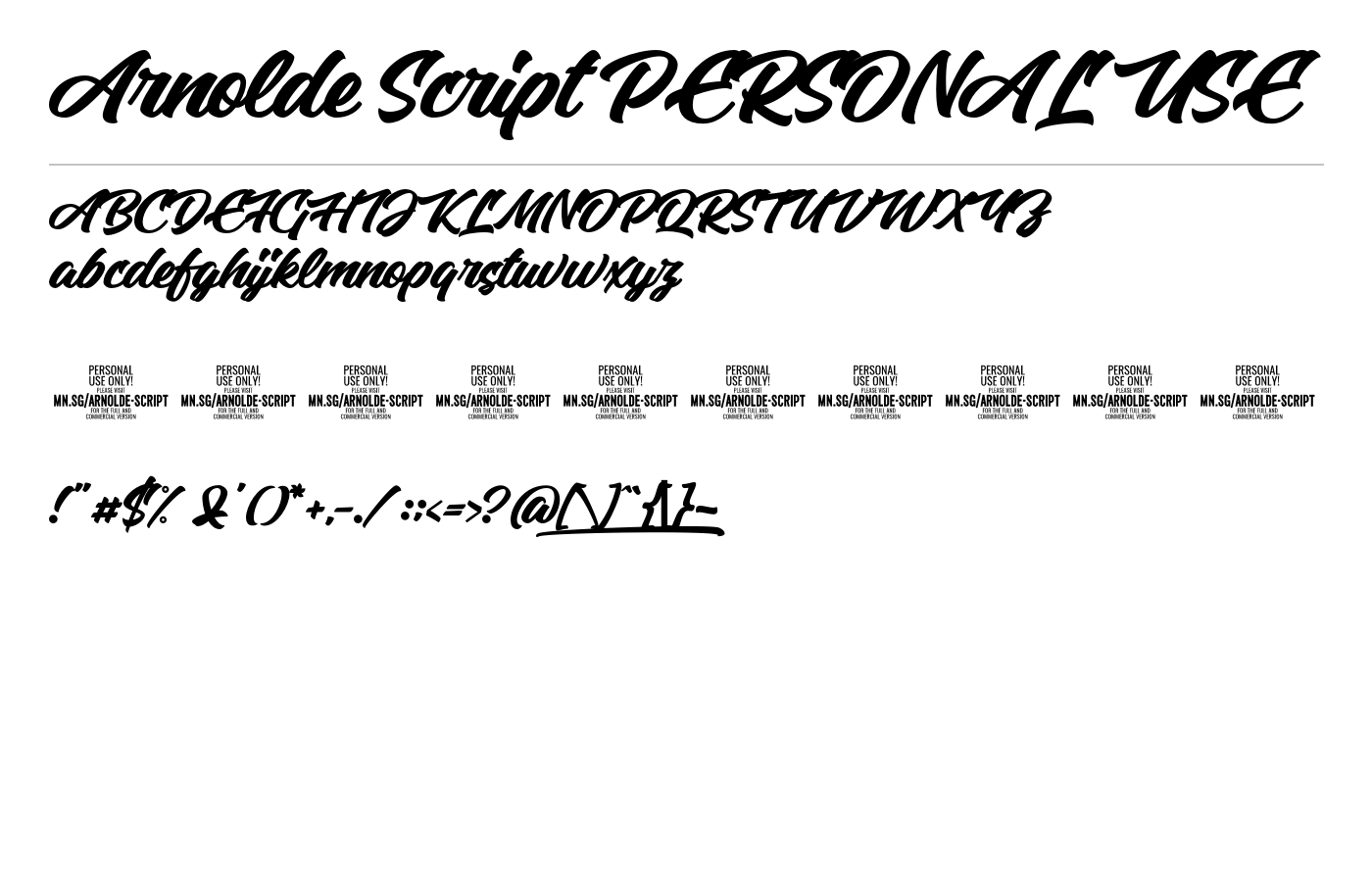
Arnolde Script is a bold and energetic script font with a lively, handwritten style that brings personality and flair to any design. Its smooth, connected strokes and moderate contrast make it perfect for creative branding, invitations, and eye-catching headlines where a stylish yet approachable look is desired. This font works well when you want to add a personal, dynamic touch without sacrificing readability.
Arnolde Script PERSONAL USE Font
About Arnolde Script PERSONAL USE Font